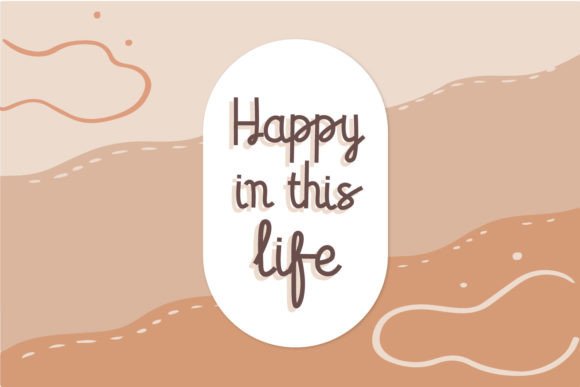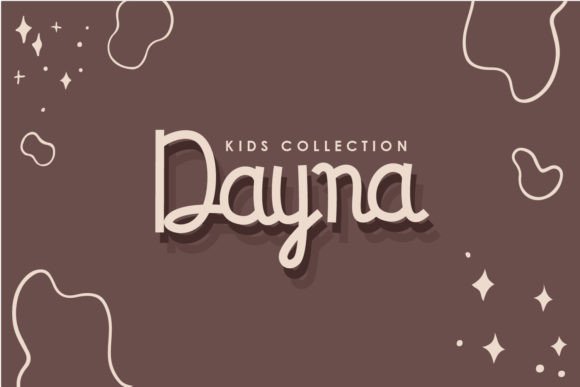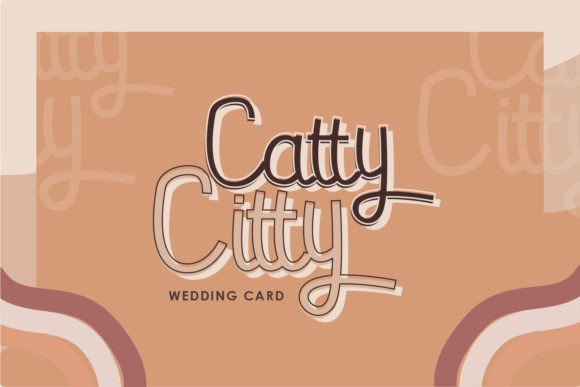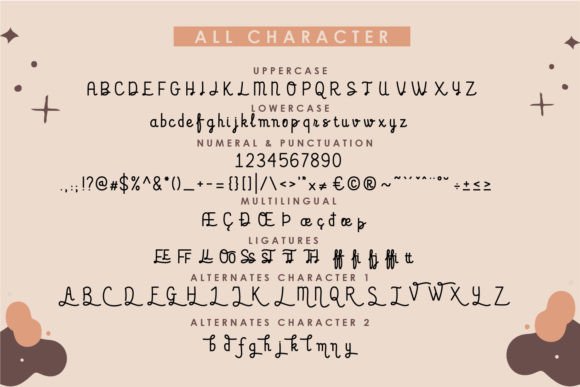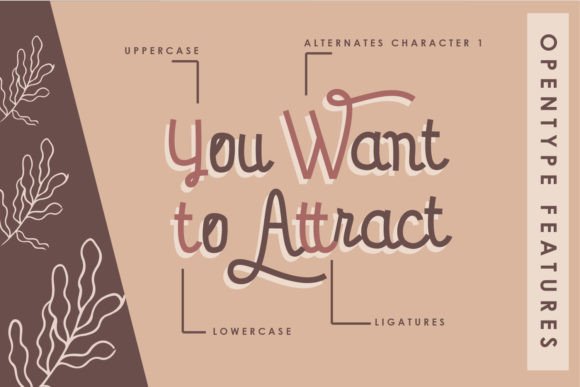
Comethru Font
About Comethru Font
Comethru is a casual and charming handwritten font. No matter the topic, this font will be an incredible asset to your fonts’ library, as it has the potential to elevate any creation.